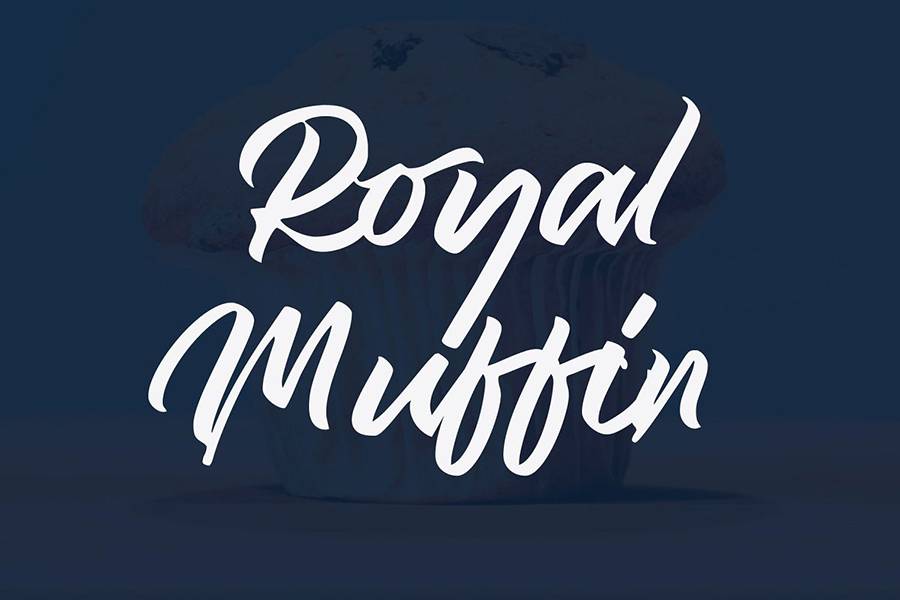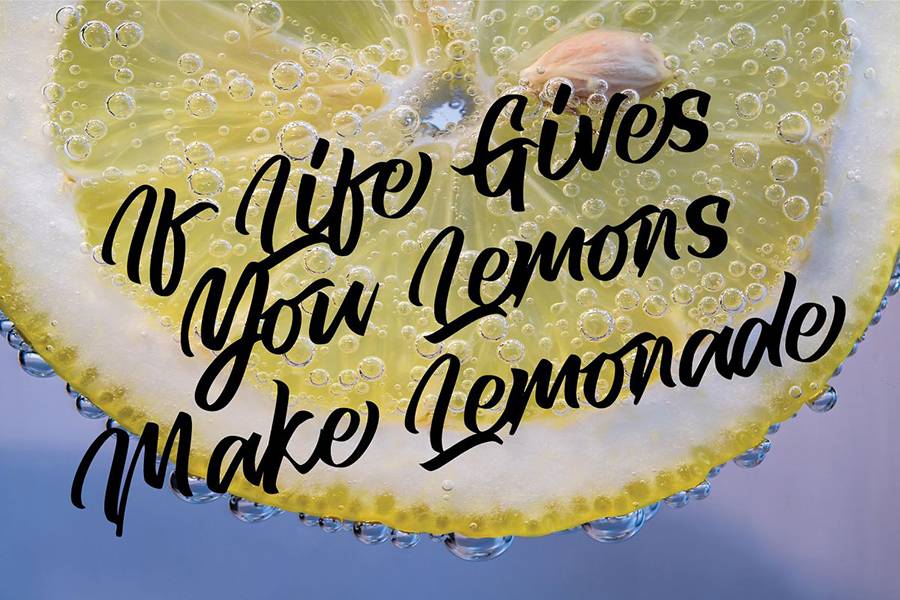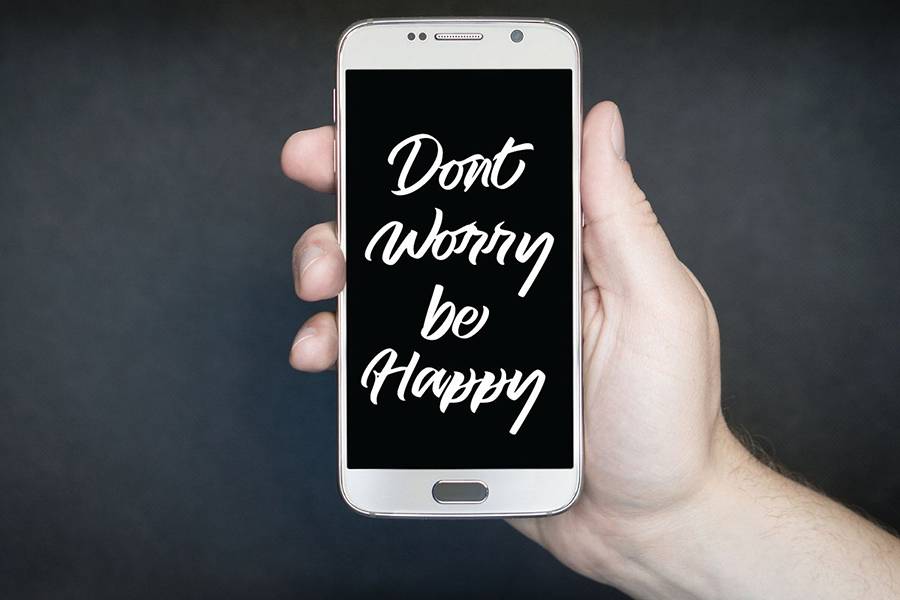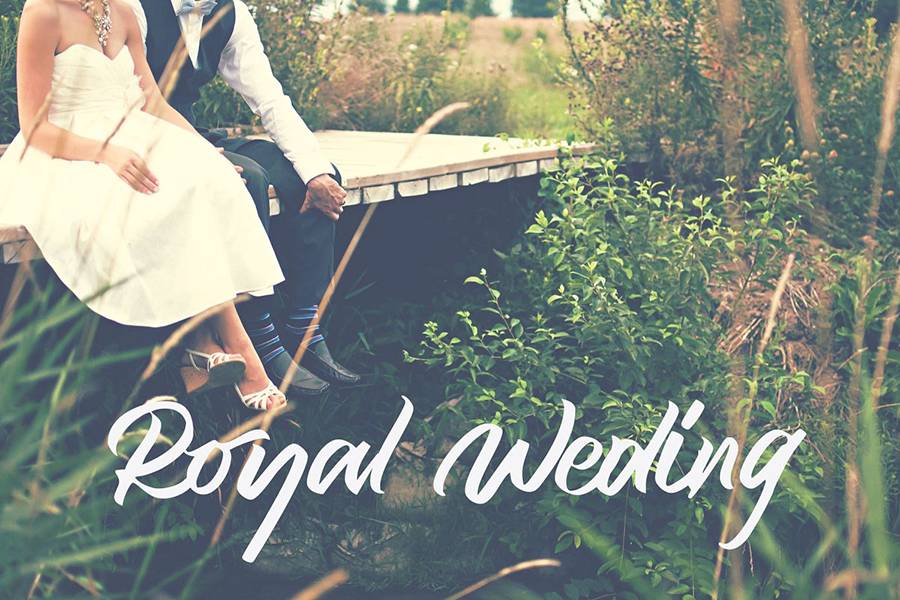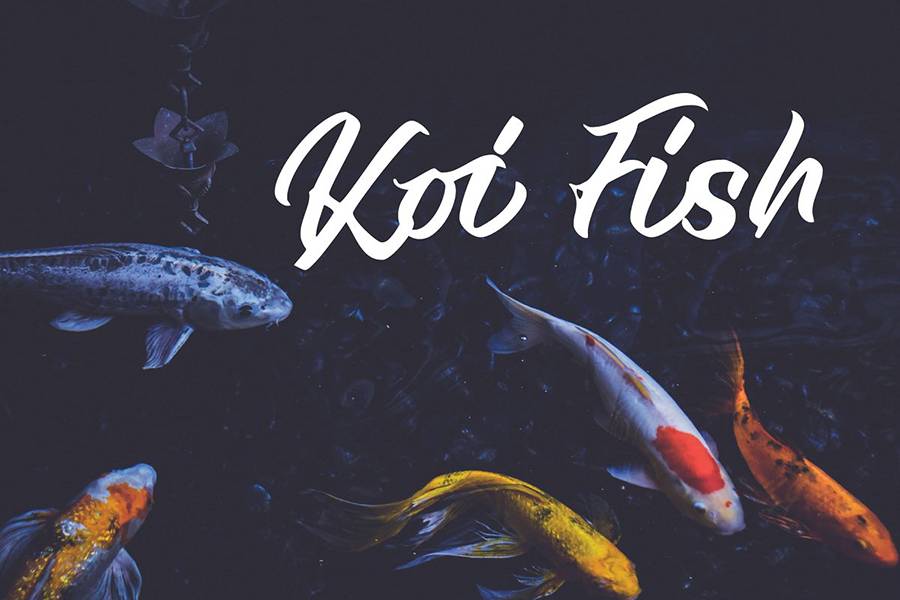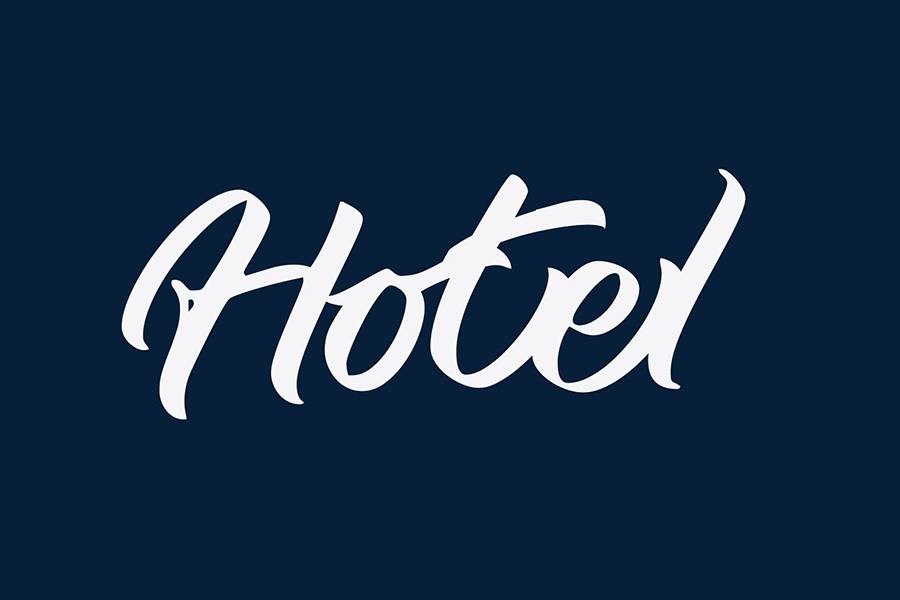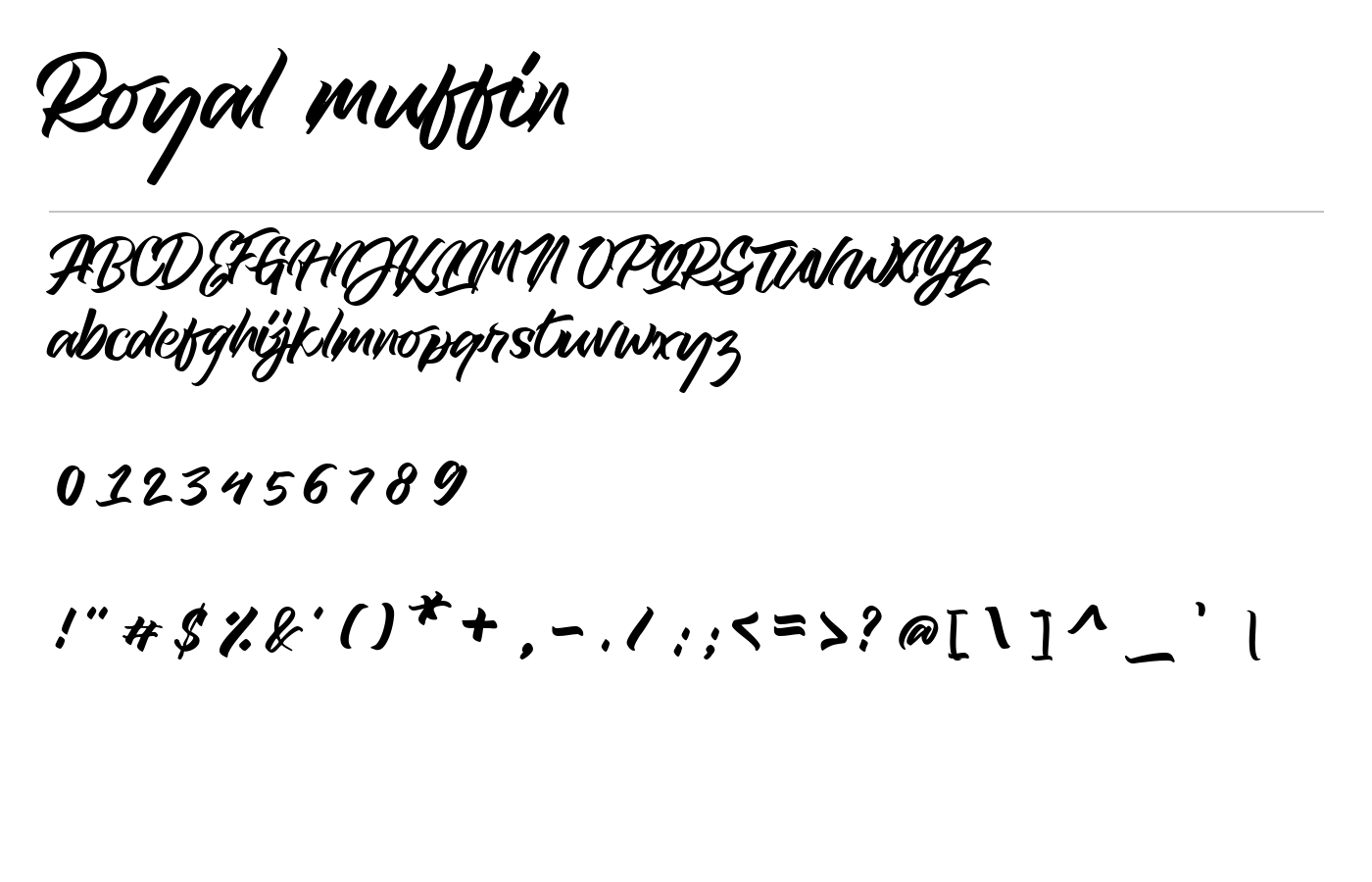
Royal Muffin Handlettering
Royal Muffin Handlettering is a brush handwriting font, Inspired by real hand lettering writing for creating storefront signboard, branding and promotional ads on the street, Royal Muffin was made to resembles the brush painting looks natural. you can create a logotype and various sign art typography with this font effortless.